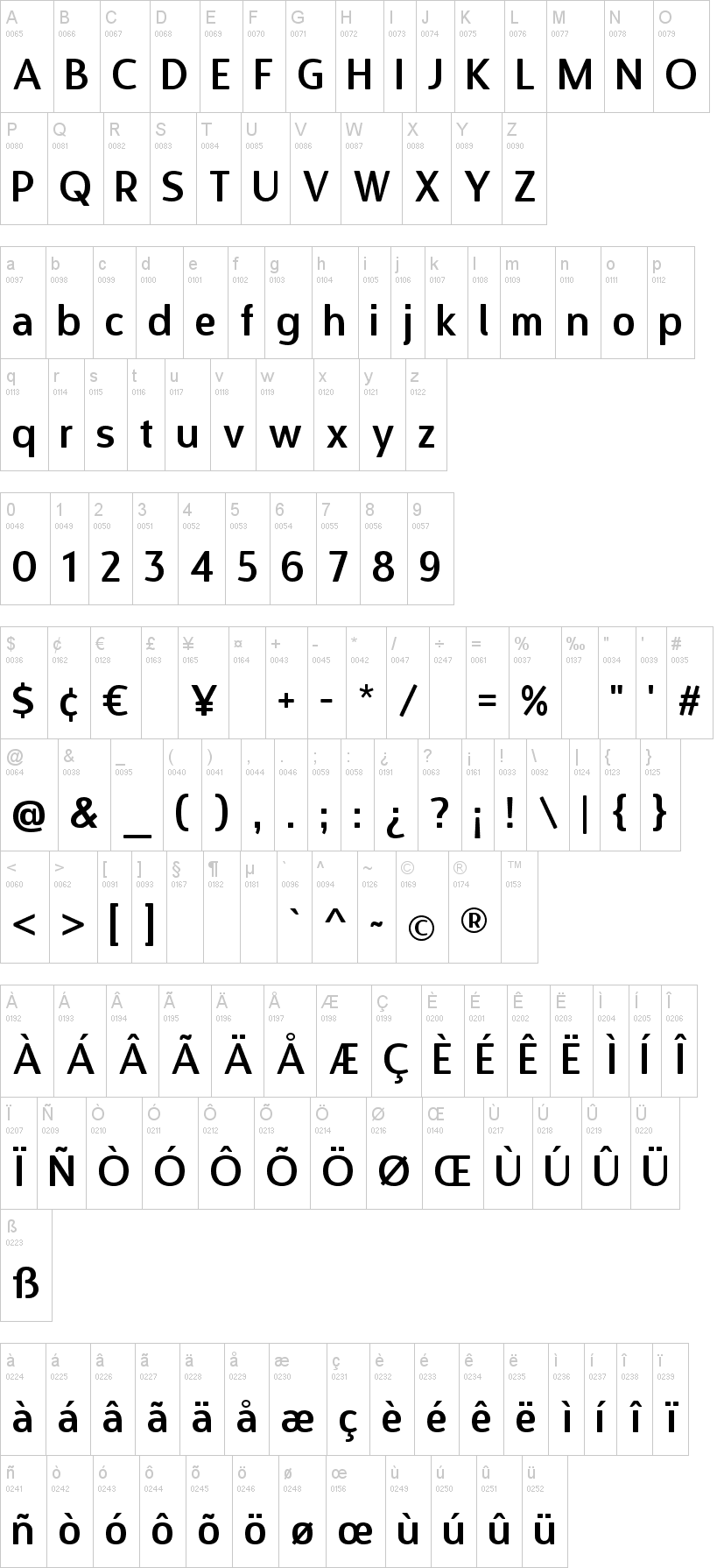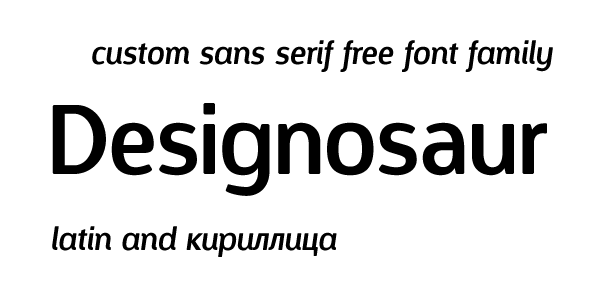
Шрифт Designosaur
We proudly present to you «Designosaur». Totally New FREE font that is intended for website designers and bloggers! Enjoy our Clean, Original and Legible font.